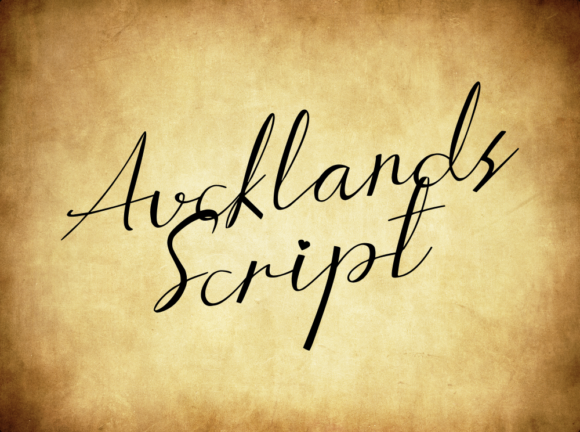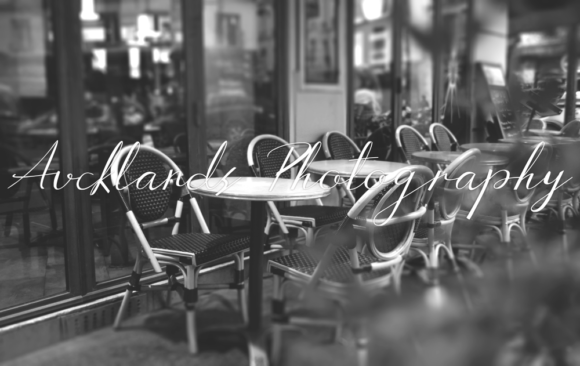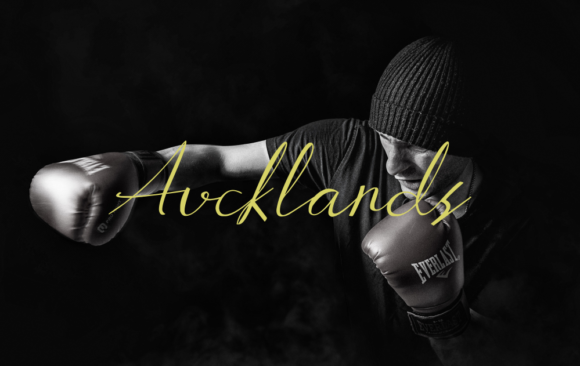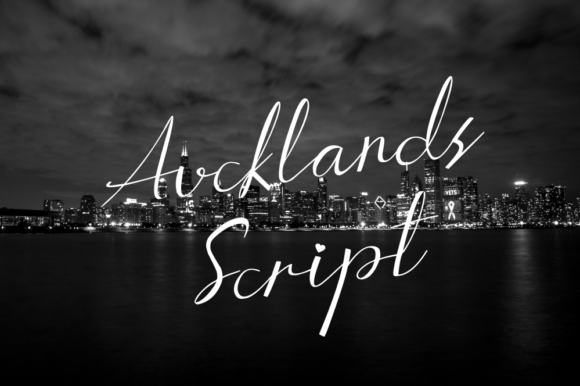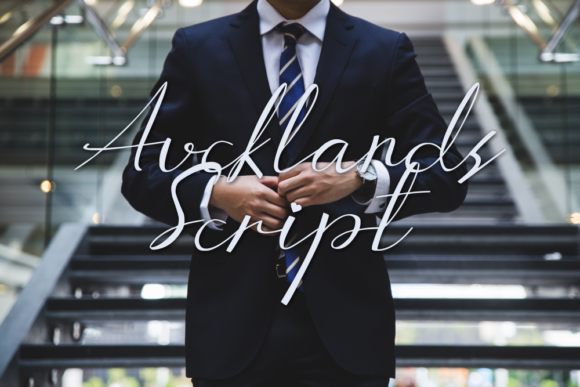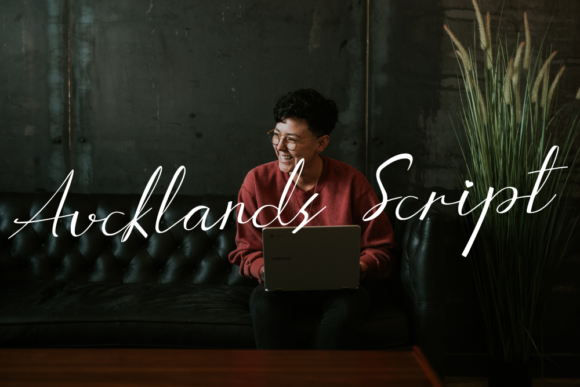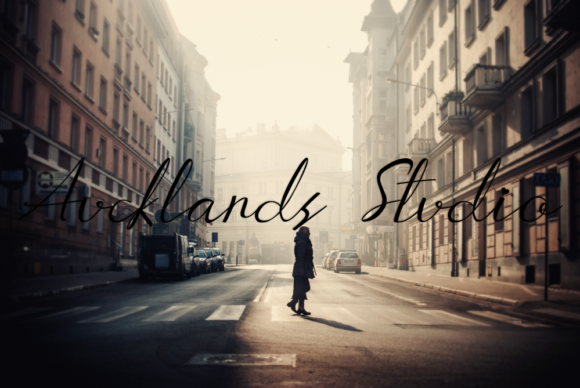
Aucklands Script Font
About Aucklands Script Font
Aucklands Script is a lovely, light and elegant handwritten font. It will effortlessly elevate any creative project with its sophisticated charm.